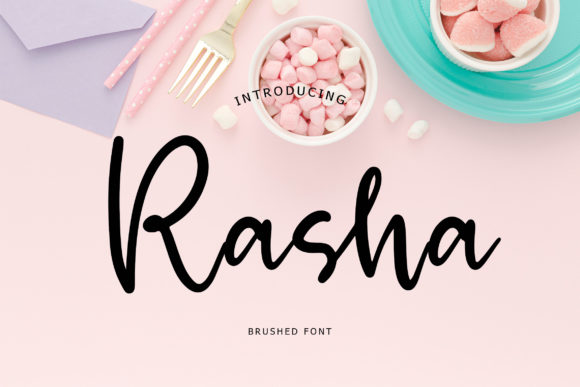
About Rasha Font
Rasha is an elegant handwritten font with a brush style. This beautiful script can make your text appear elegant, luxurious, and modern! This font is perfect for branding projects, logo, book cover design, tshirt designs, social media posts, advertisements, product packaging, product designs, label, watermark, invitation, stationery and more.